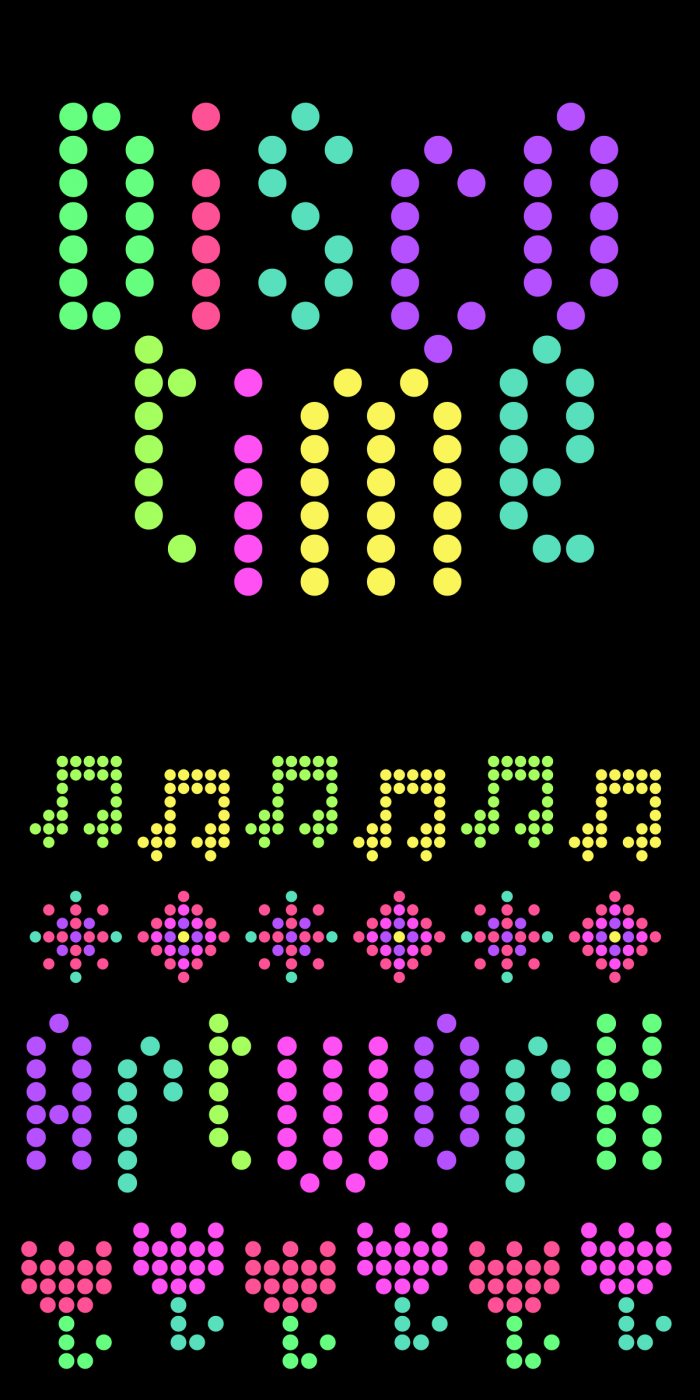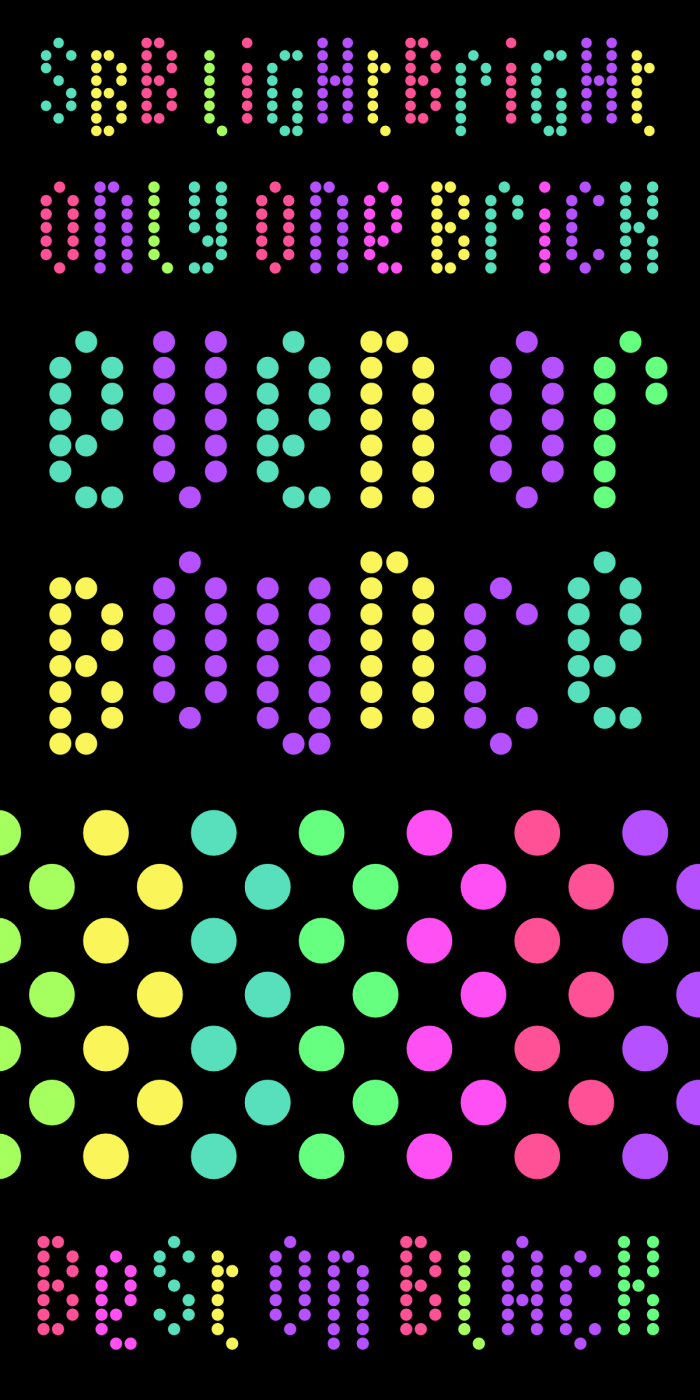
• SbB Lightbright is best viewed against a black background. Inspired by old Lite-Brite toys, this design uses a single round module to create a whimsical design. Uppercase letters are in a higher position, while lowercase letters are dropped a pixel. If you want your letters to have a bounce pattern, just alternate cases.
One brick. Seven colors.
I love the little flowers and may have to add a few more symbols.